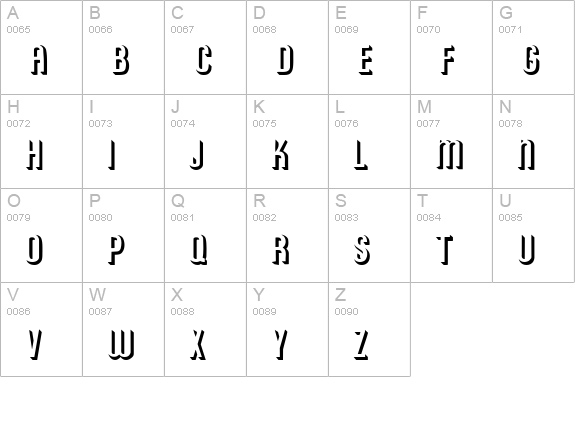
RoundedRelief Regular is the standard, neutral variant in the RoundedRelief typeface family \xE2\x80\x94 well suited to general body text, paragraphs, and standard typographic work.
RoundedRelief Regular font is a versatile and modern typeface that exudes a perfect blend of elegance and simplicity. Its rounded edges and clean lines make it ideal for a wide range of design projects, from branding to web design and everything in between. The subtle relief effect adds a touch of sophistication to this font, making it stand out while maintaining a sense of approachability. Best of all, RoundedRelief Regular font is available for free download at FontsMarket.com. This means you can easily access and use this stylish typeface in your projects without any hassle or cost. Whether you're a graphic designer, web developer, or just a typography enthusiast, RoundedRelief Regular font is sure to elevate your designs and leave a lasting impression on your audience. Download it today and unleash your creativity with this beautiful and versatile font.